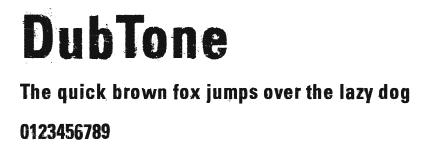
DubTone Preview
• Font Name: DubTone
• Full Font Name: DubTone
• Designer: SebDub
About DubTone.ttf
DubTone.ttf is a modern, elegant sans-serif font designed for ultimate readability and visual harmony. Perfect for branding, headlines, web design, and print materials.